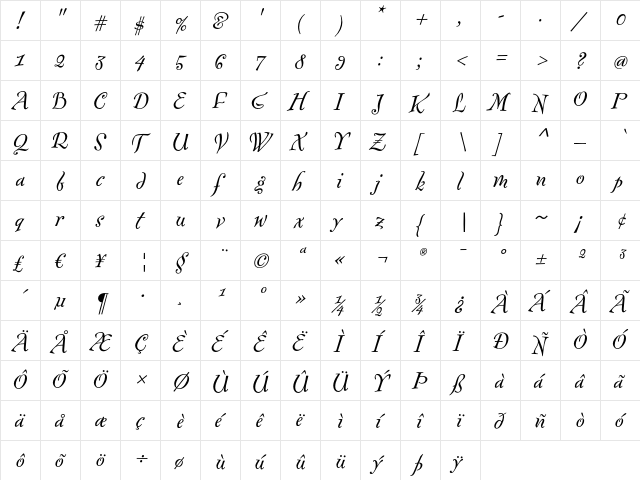
FontesqueText Italic
Design Context for FontesqueText Typeface
FontesqueText is a composed and adaptable typeface that performs quietly and consistently across a wide range of design contexts. Its italic angle brings a sense of urgency and motion to the letterforms.
Pro Tip: Try FontesqueText for annotation and caption copy alongside an upright companion — the contrast in angle creates a dynamic but ordered typographic system.